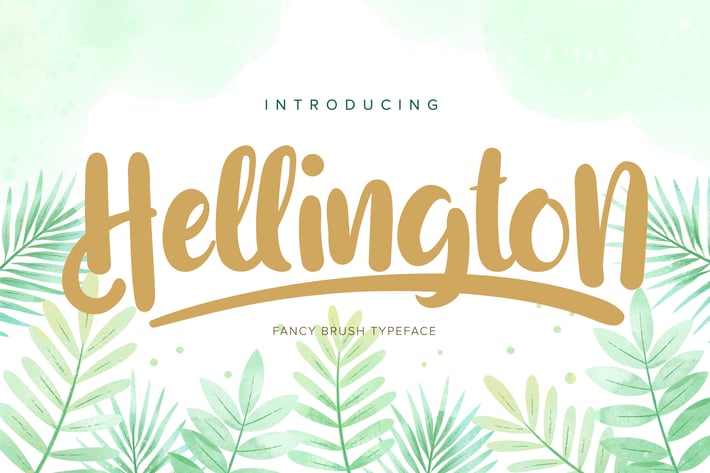
Hellington | Fancy Brush Typeface
Hellington | Fancy Brush Typeface with a calligraphy style, So beautiful on invitation like greeting cards, branding materials, business cards, quotes, posters, and more!